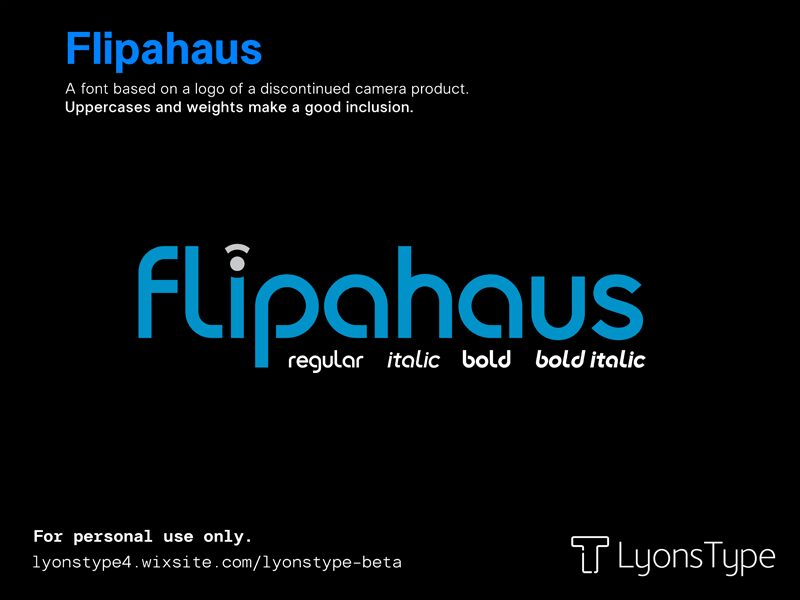
Flipahaus Regular
Flipahaus, designed by LyonsType, is a distinctive sans serif font that captures the essence of modernity while paying homage to the classic aesthetic of a bygone era. Its semi-light weight grants it a subtle grace, making it an excellent choice for projects seeking both clarity and character. Born from the logo of a discontinued camera product, Flipahaus carries with it an air of nostalgia wrapped in contemporary sleekness.
The incorporation of uppercase letters within Flipahaus adds to its versatility, providing designers with the tools to make bold statements or craft elegant designs with equal ease. The font's clean lines and balanced proportions are not only pleasing to the eye but also enhance readability across various mediums.
Whether used in branding, editorial design, or digital interfaces, Flipahaus stands out for its stylish simplicity and potential to inject a touch of vintage flair into creative endeavors. Its unique origins and thoughtful design make it especially fitting for projects that aim to blend the old with the new in harmonious and innovative ways.
The incorporation of uppercase letters within Flipahaus adds to its versatility, providing designers with the tools to make bold statements or craft elegant designs with equal ease. The font's clean lines and balanced proportions are not only pleasing to the eye but also enhance readability across various mediums.
Whether used in branding, editorial design, or digital interfaces, Flipahaus stands out for its stylish simplicity and potential to inject a touch of vintage flair into creative endeavors. Its unique origins and thoughtful design make it especially fitting for projects that aim to blend the old with the new in harmonious and innovative ways.